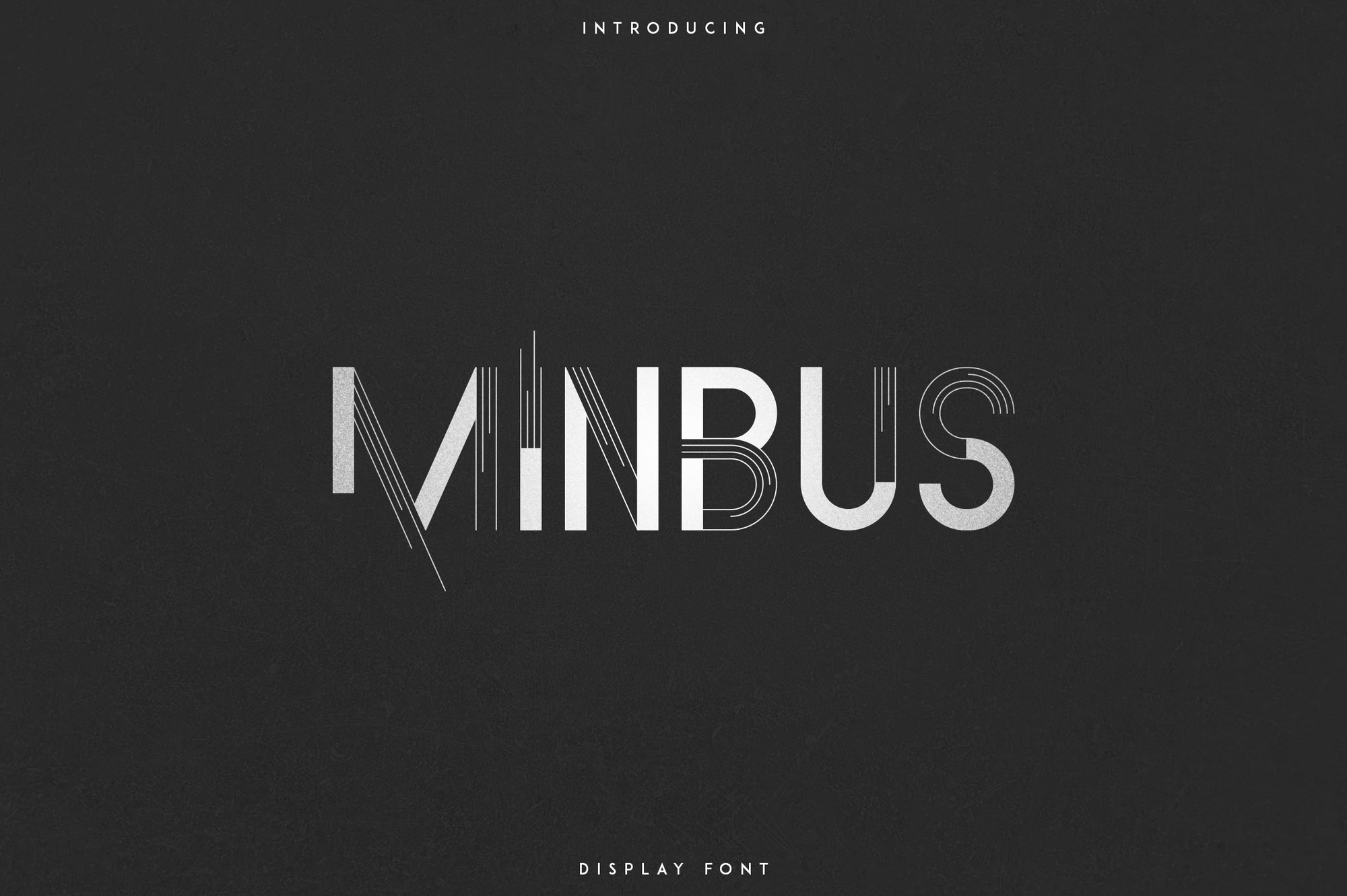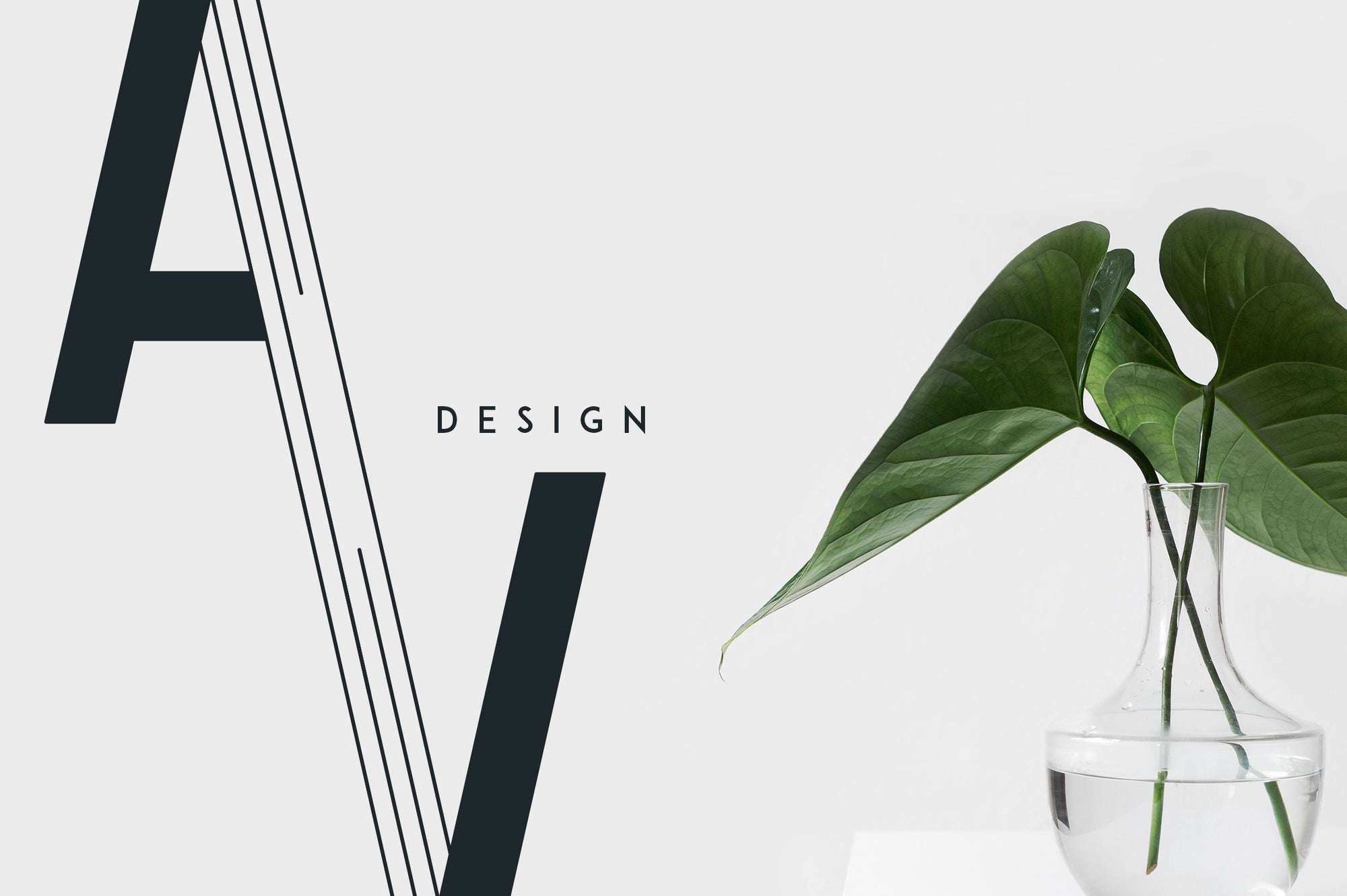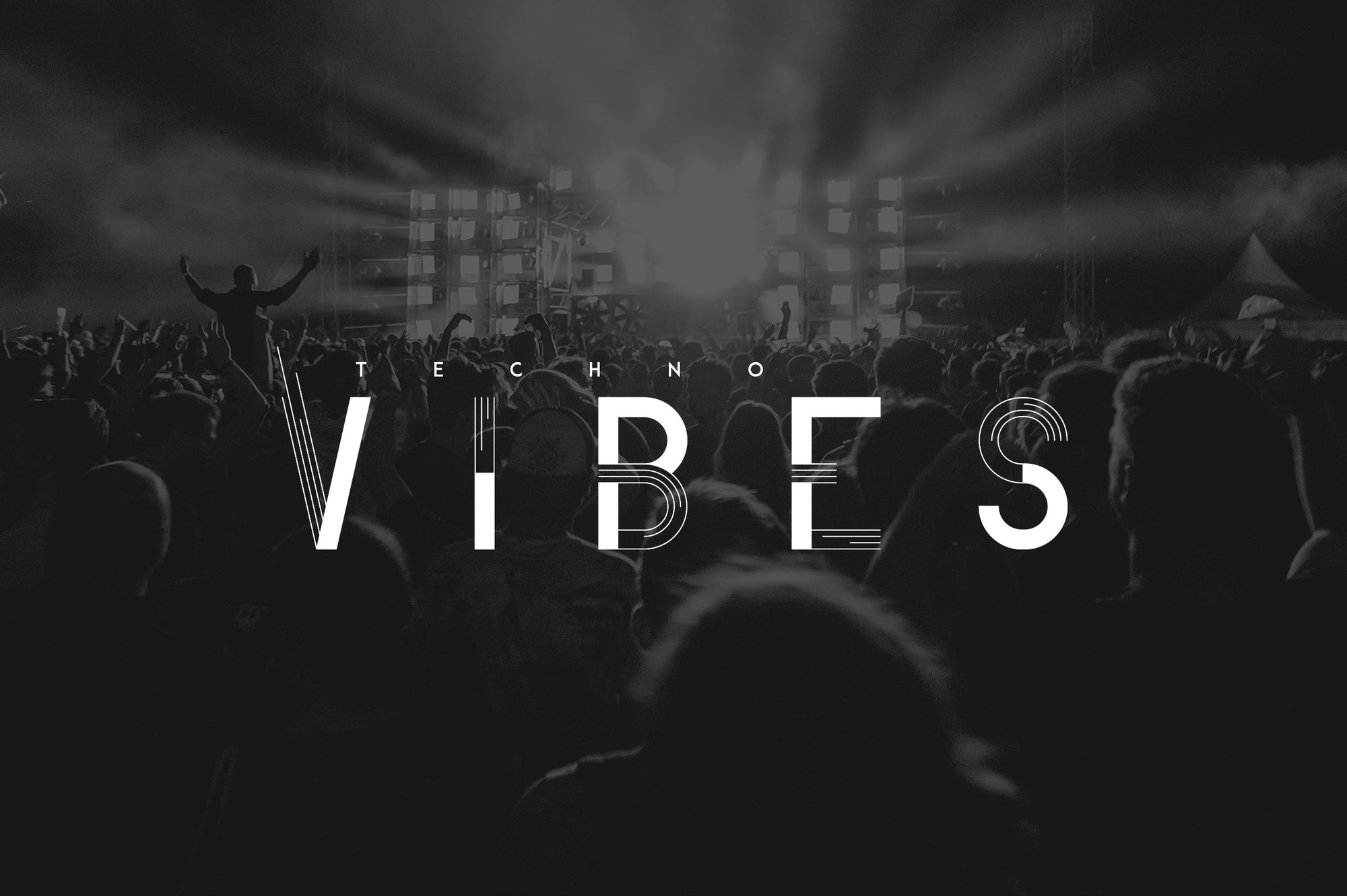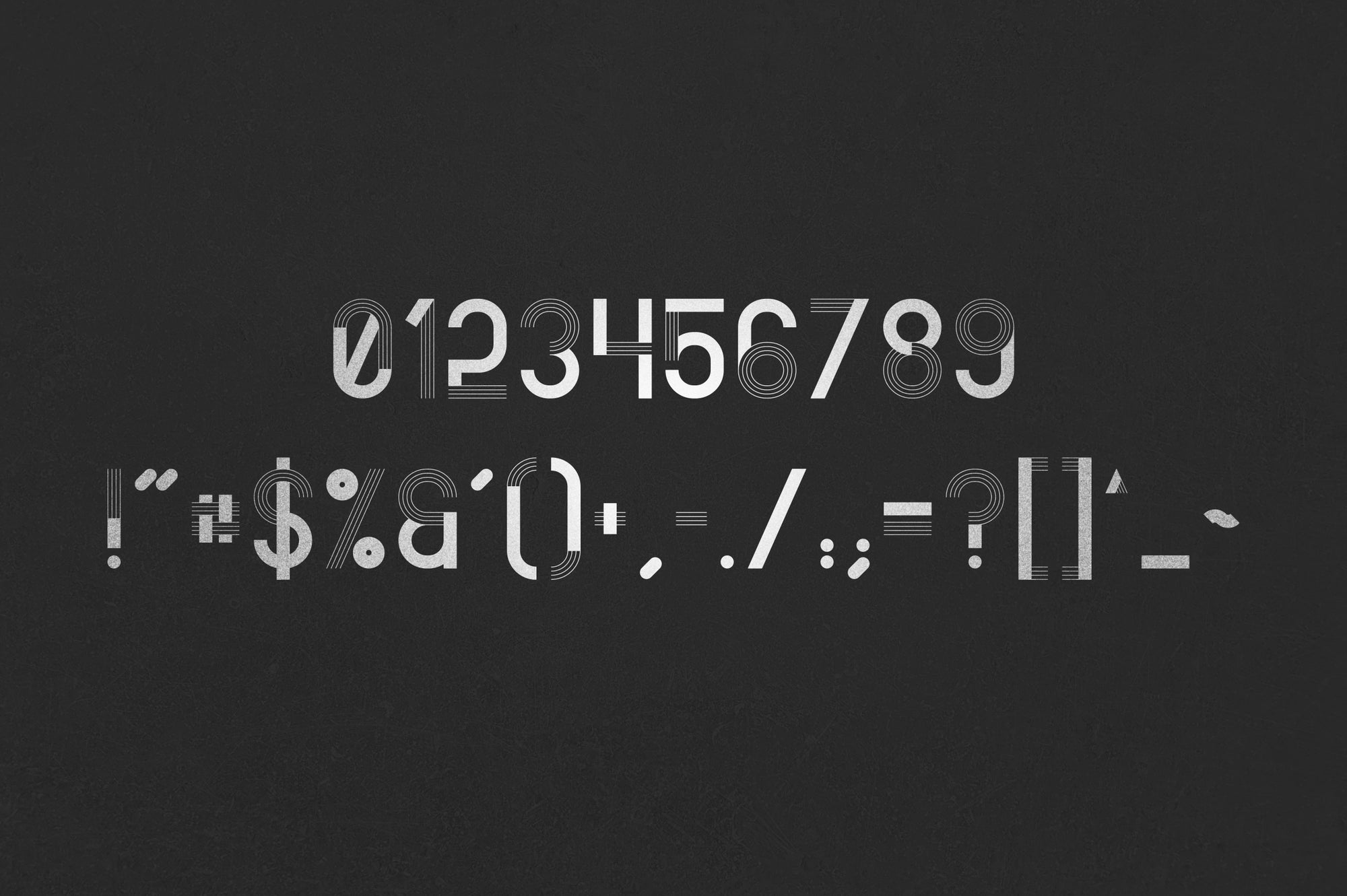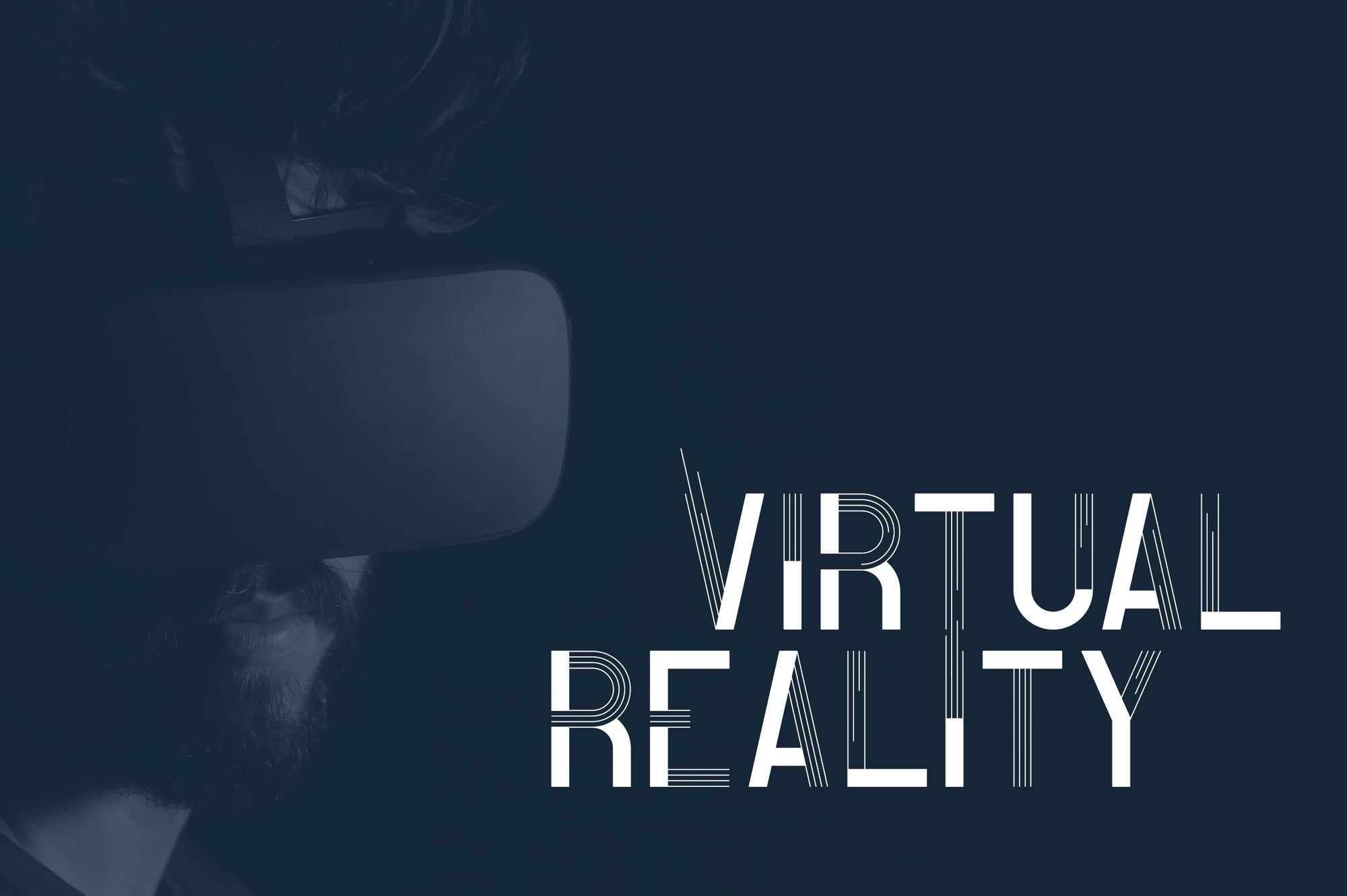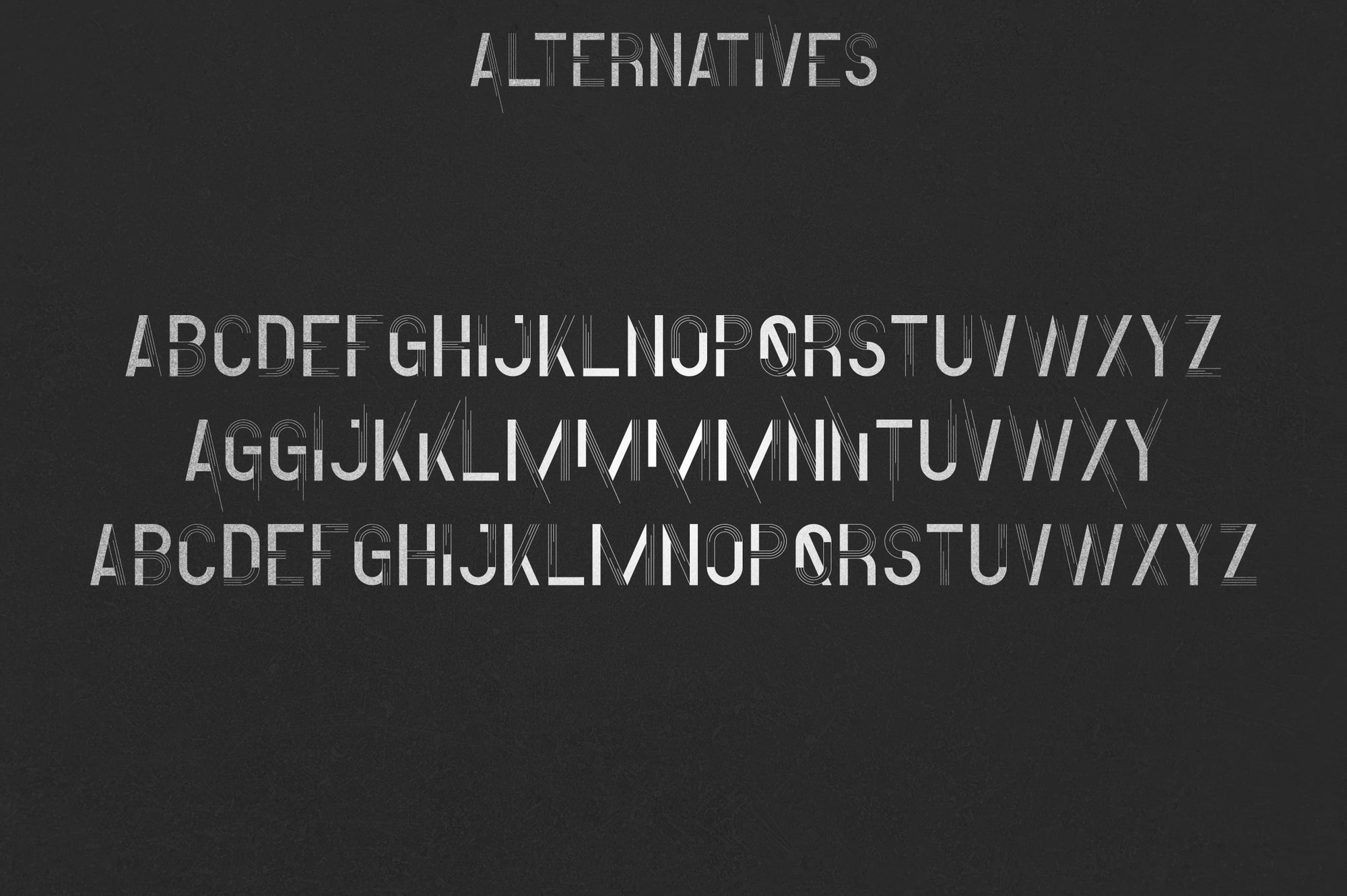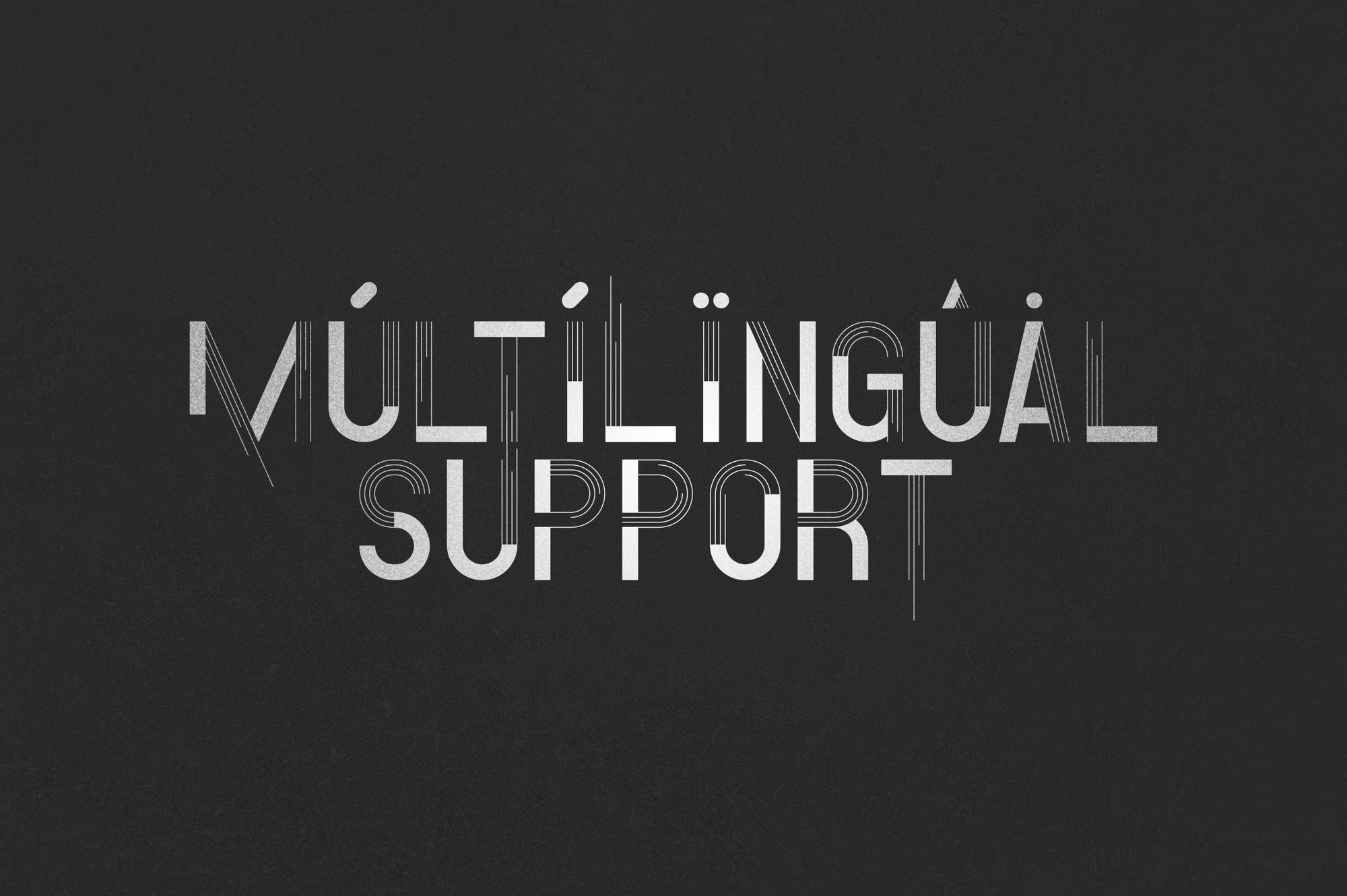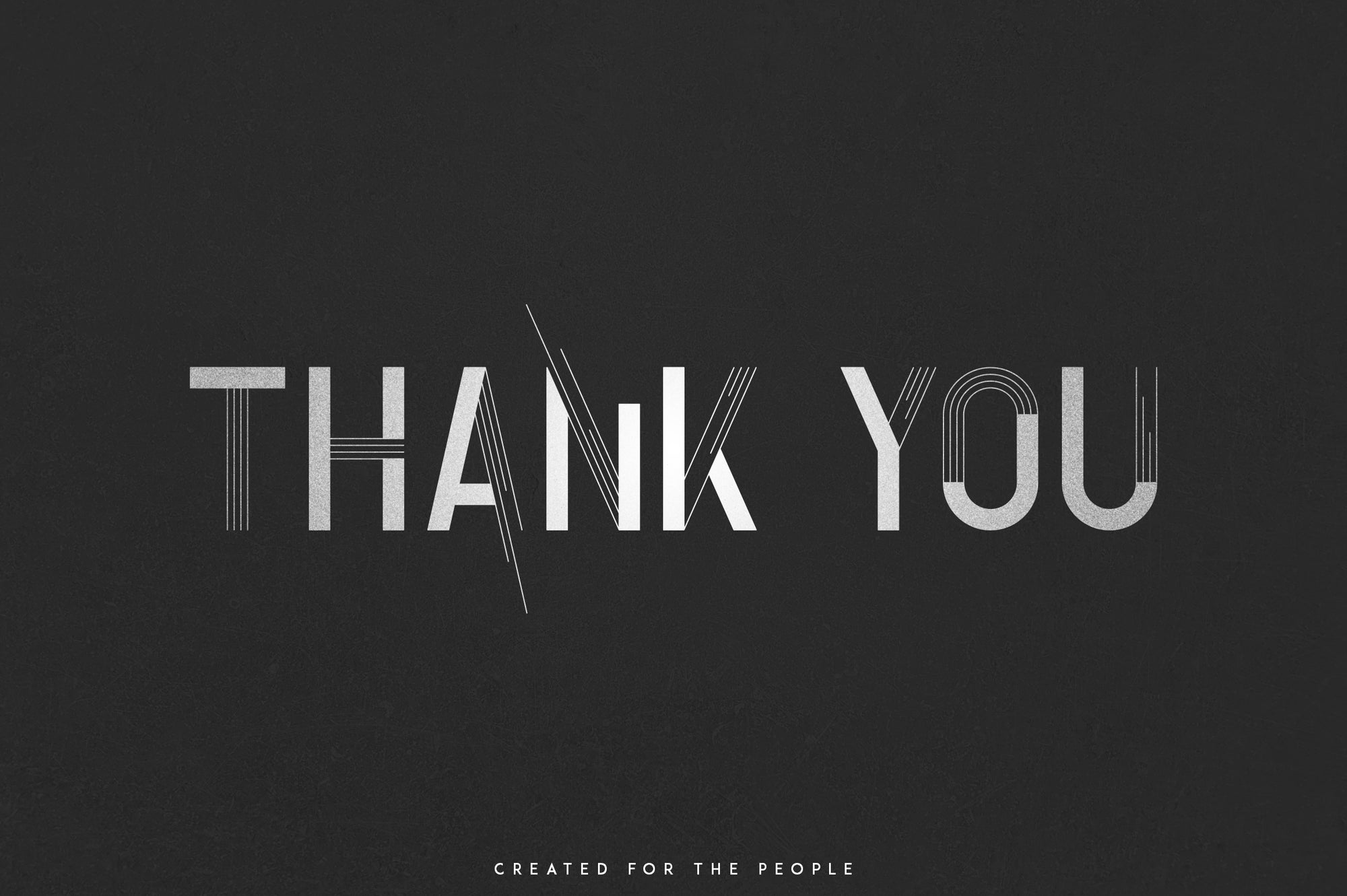
Minbus – Display font
Introducing Minbus- Display Font
Minbus is futuristic font with alternative glyphs and multilingual support. It’s a very versatile font that works great in large and small sizes.
Minbus is perfect for branding projects, home-ware designs, product packaging, magazine headers – or simply as a stylish text overlay to any background image.
- Uppercase,lowercase, numeral,punctuation & Symbol
- Clean
- Multilingual support
- Alternatives